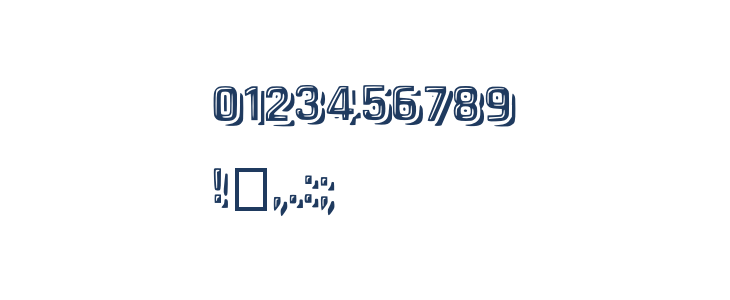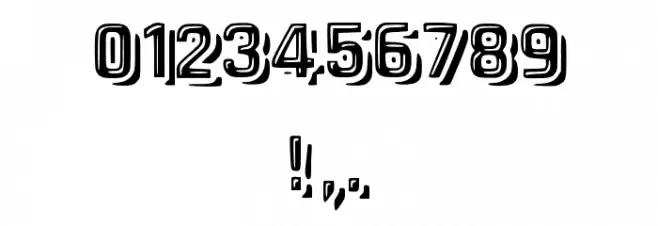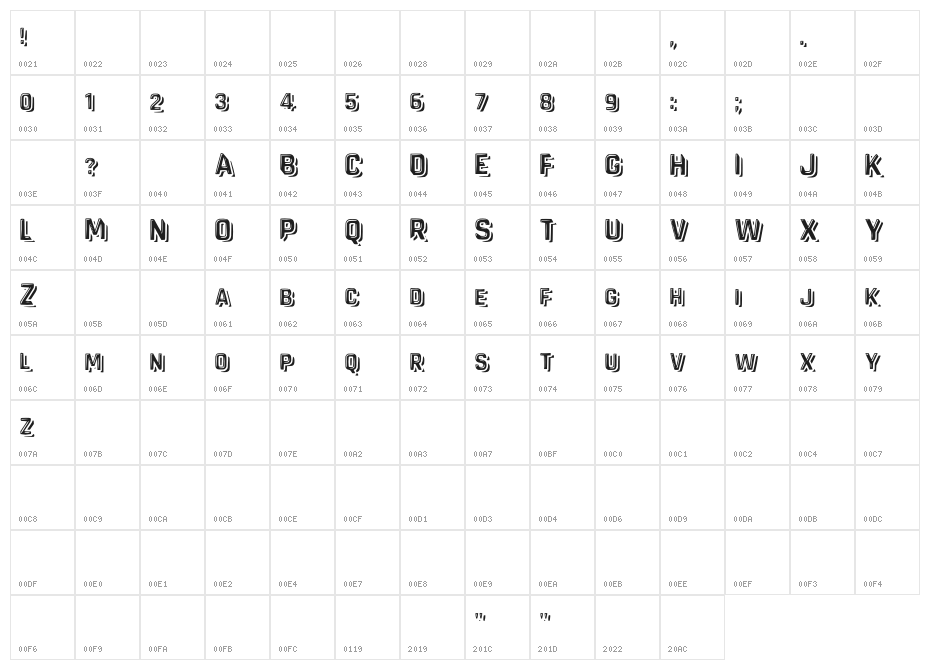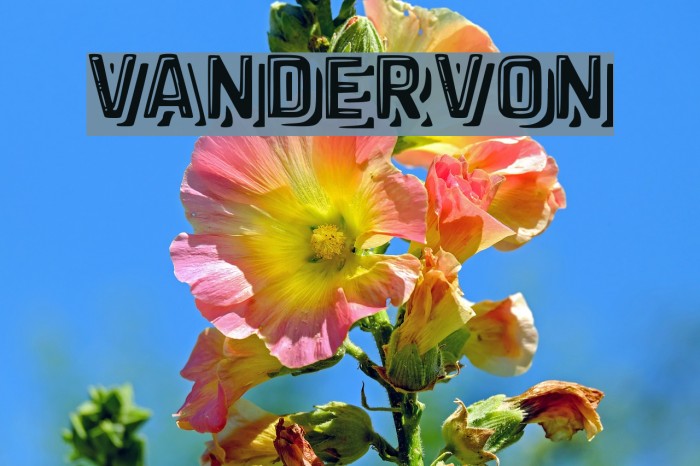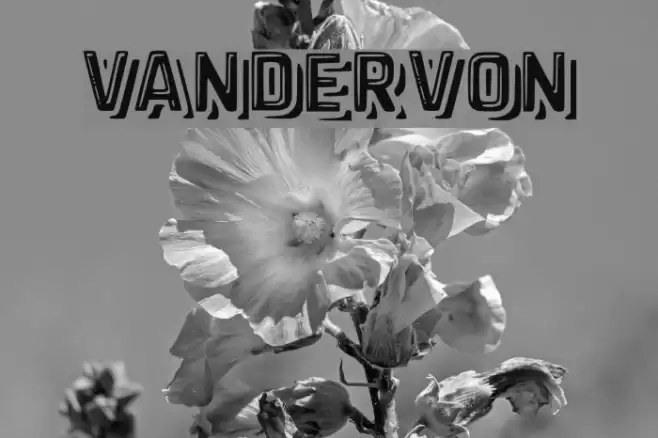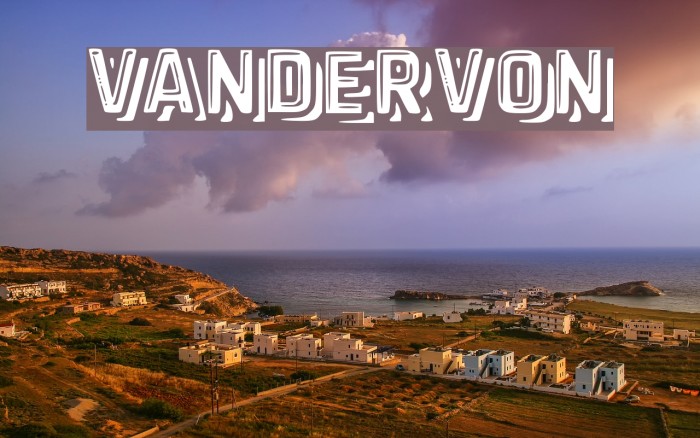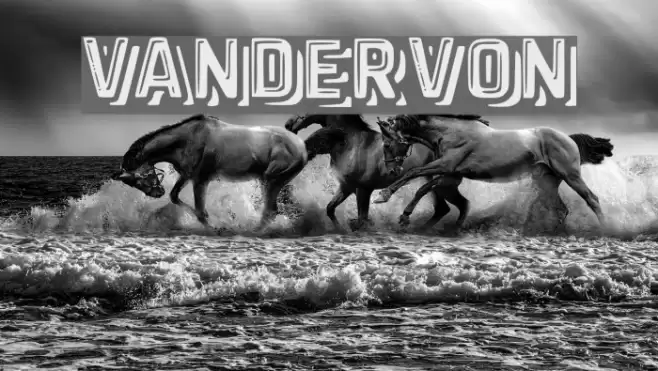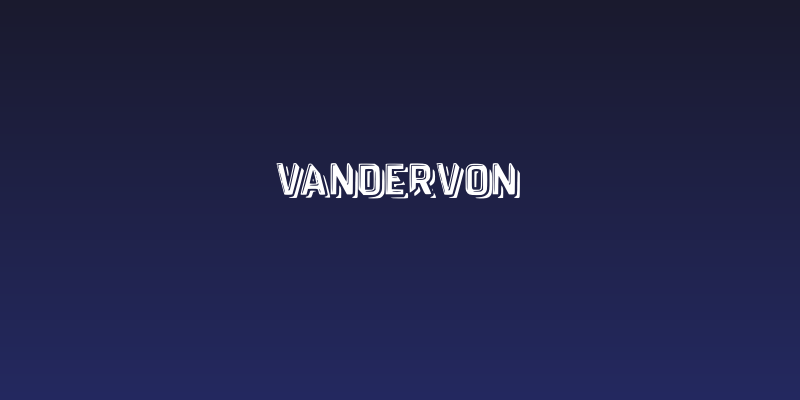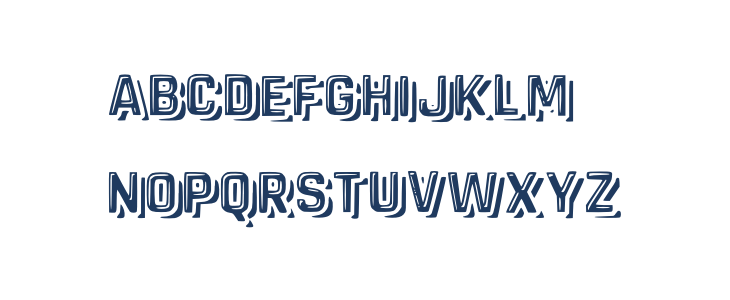
vandervon Font
vandervon Description
This font features a bold, three-dimensional design with a shadow effect that gives it a striking and dynamic appearance. The uppercase letters are prominently displayed with a strong geometric structure, while the numbers and special characters maintain the same bold style. The font's unique shadowing adds depth and makes it ideal for eye-catching designs. Its clean lines and distinct angles contribute to a modern and impactful look, suitable for various creative projects. The spacing between characters is consistent, ensuring readability while maintaining its decorative flair.
| Proposed Projects | Perfect for posters, headlines, logos, and any design requiring a strong visual impact. |